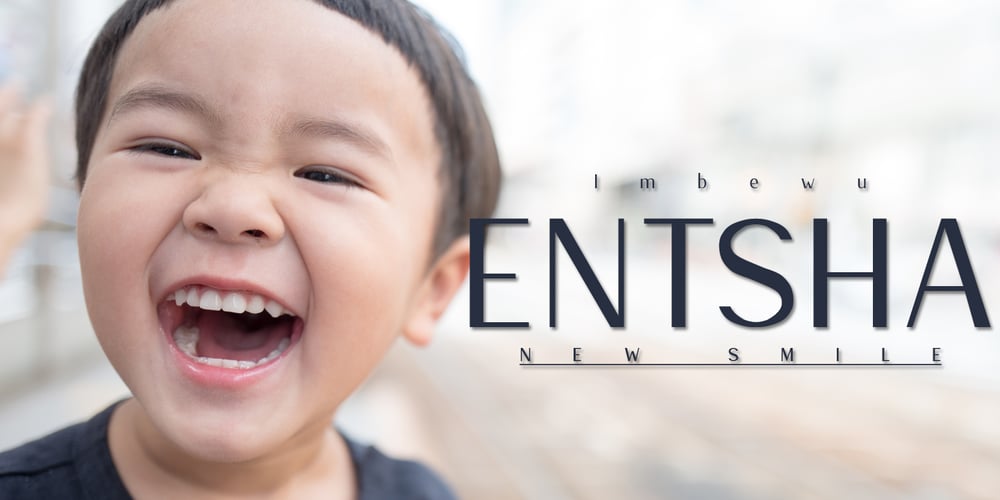
Entsha Font Family was designed by Slyzi and published by S.P.M.H. Entsha contains 4 styles and family package options. Entsha is a gorgeous sans-serif typeface that is both classically elegant and inherently modern. Create beautiful wedding invitations, use it as an elegant solution for your next magazine layout, or choose Entsha for any graphics that require a sleek look with a vintage flair. Entsha is based on classic letterforms for publishing and display graphics, so you can give your text a classic, elegant feel with Entsha’s clean, high-contrast lines and alternating thick and thin strokes.